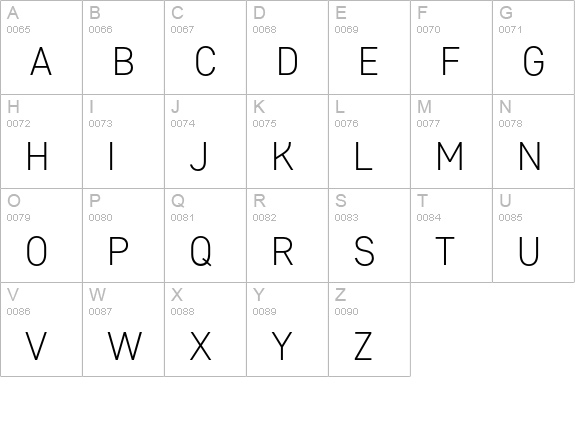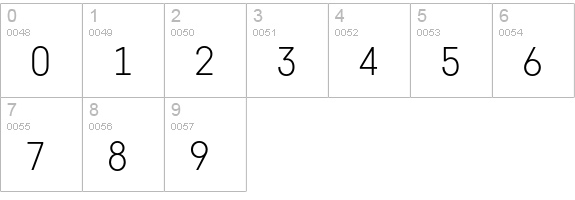
Core Sans D 25 Light is a refined, elegant variant in the Core typeface family \xE2\x80\x94 well suited to elegant body text, refined sub-headings, and luxury branding.
Core Sans D 25 Light font is a modern and elegant typeface that exudes sophistication and versatility. With its clean lines and sleek design, this font is perfect for a wide range of design projects, from branding to editorial layouts. Its light weight gives it a delicate and refined appearance, making it ideal for conveying a sense of elegance and subtlety. What makes Core Sans D 25 Light font even more appealing is that it is available for free download at FontsMarket.com. This means that you can easily access this stylish font without any cost, making it a valuable addition to your font collection. Whether you are a designer looking for a sleek and modern typeface or a business owner seeking a sophisticated font for your branding materials, Core Sans D 25 Light font is sure to impress with its clean and contemporary aesthetic. Download it today and elevate your design projects with this versatile and stylish font.